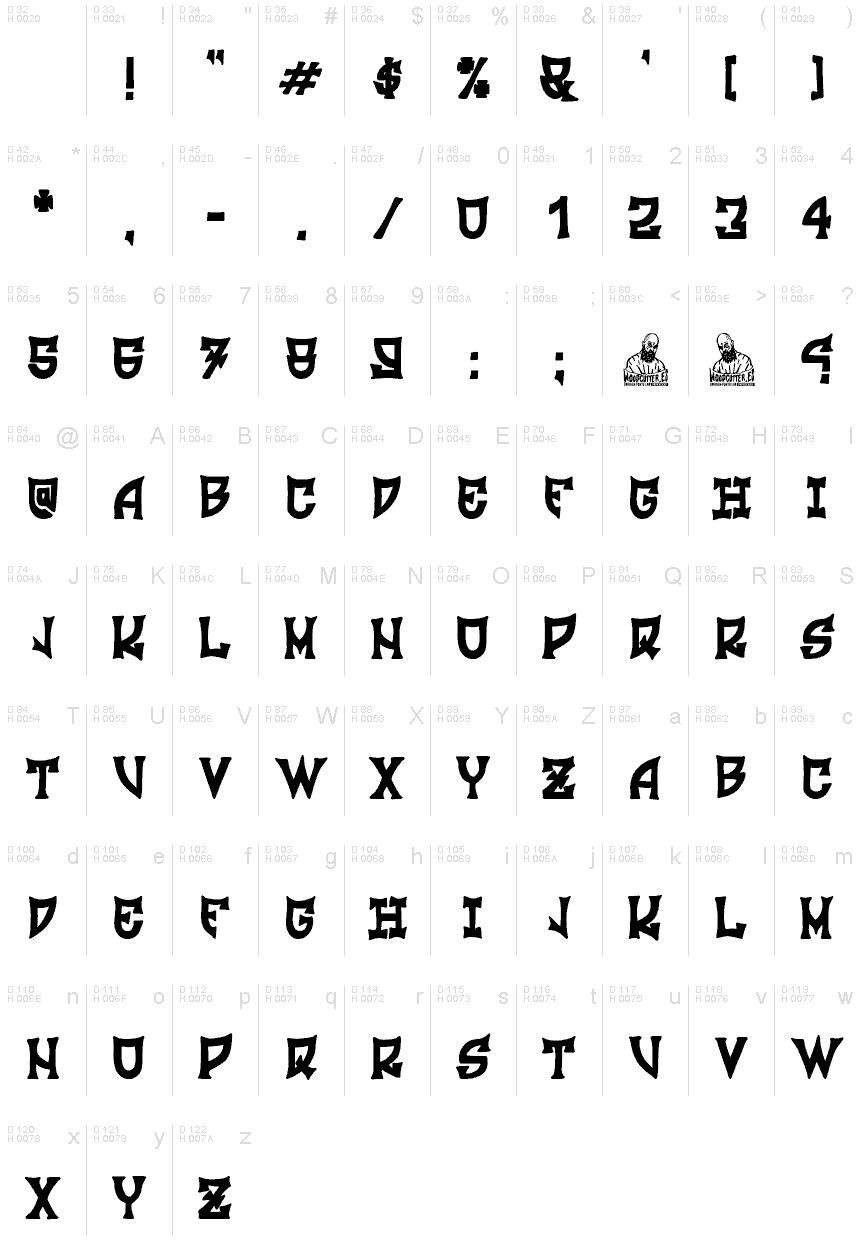
Italian Ultras
With a solid black design and strong, angular shapes, this Italian Ultras font is a great font for posters and banner headlines, especially when used against lighter background colors.
The Italian Ultras gothic font is inspired by classic block type fonts and is great for branding projects where the brand has a heavy, solid presence. This sans serif font includes uppercase characters, numbers, and punctuations. Use the bold font for apparel designs and accessories or for the titles of newspapers and magazines.